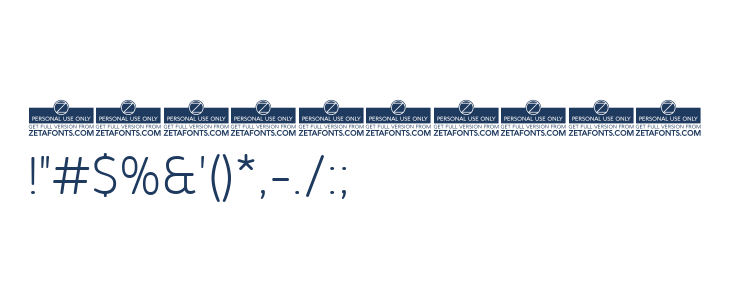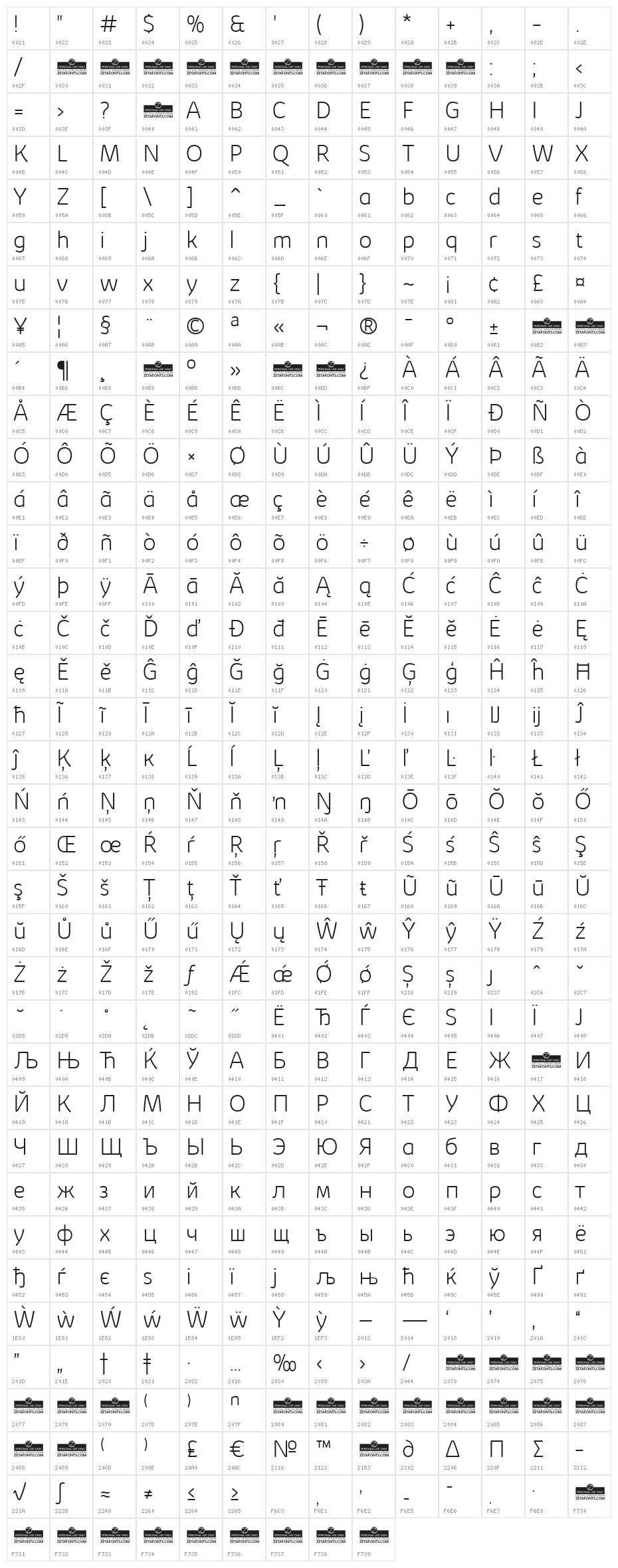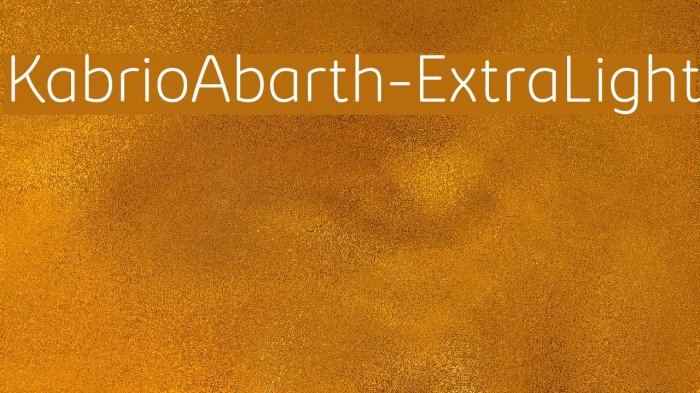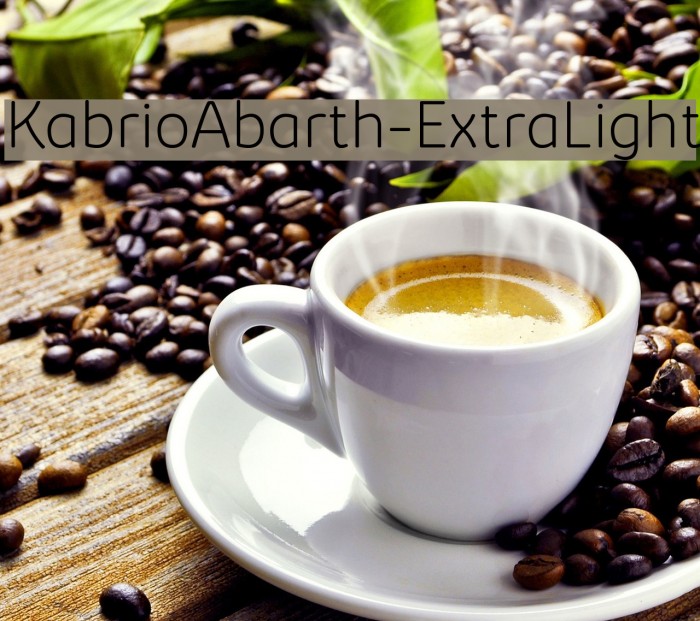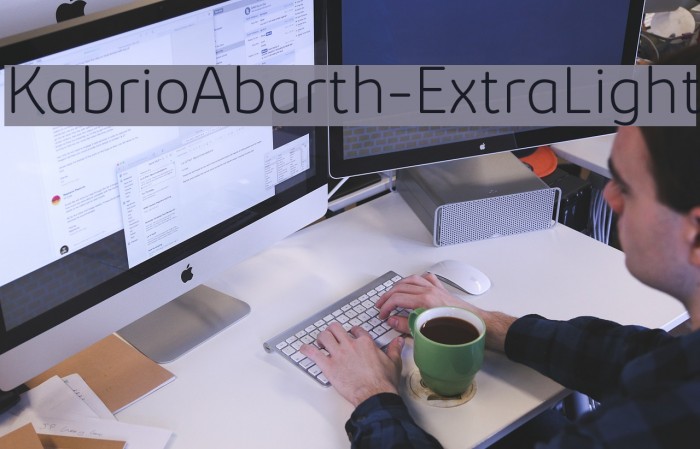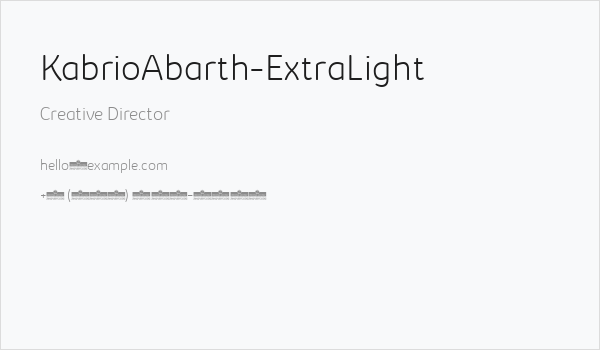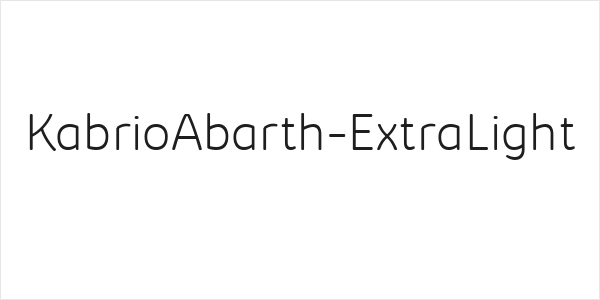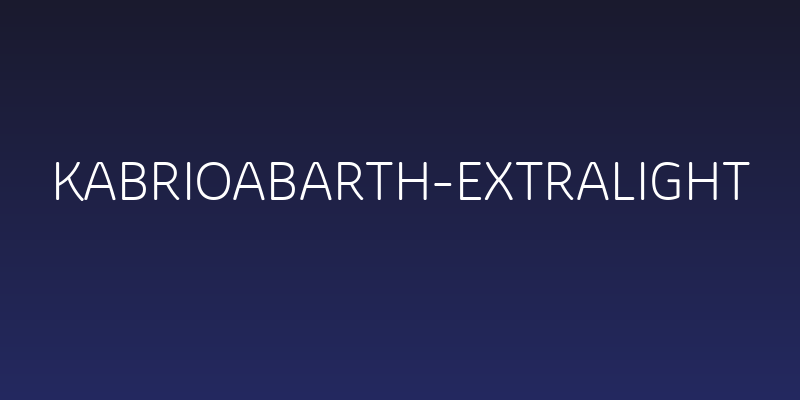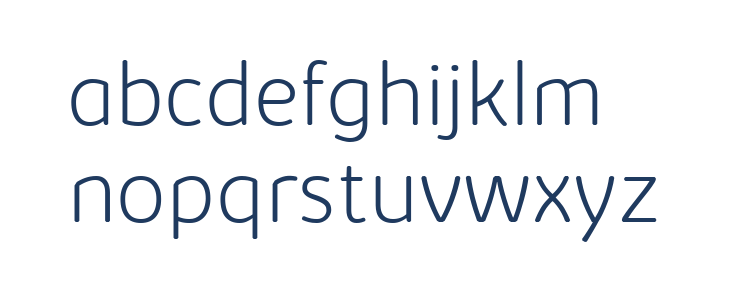
KabrioAbarth-ExtraLight Font
KabrioAbarth-ExtraLight Description
This font features a clean and modern sans-serif design with a minimalist aesthetic. The characters are evenly spaced, providing a balanced and harmonious look. The strokes are uniform in thickness, contributing to a sleek and contemporary appearance. The uppercase letters are tall and slightly narrow, while the lowercase letters maintain a consistent height, enhancing readability. The numerals and special characters are designed to match the overall style, ensuring a cohesive visual experience. This font is versatile and suitable for a variety of design applications.
| Proposed Projects | Ideal for branding, web design, user interfaces, and print materials where clarity and modernity are desired. |